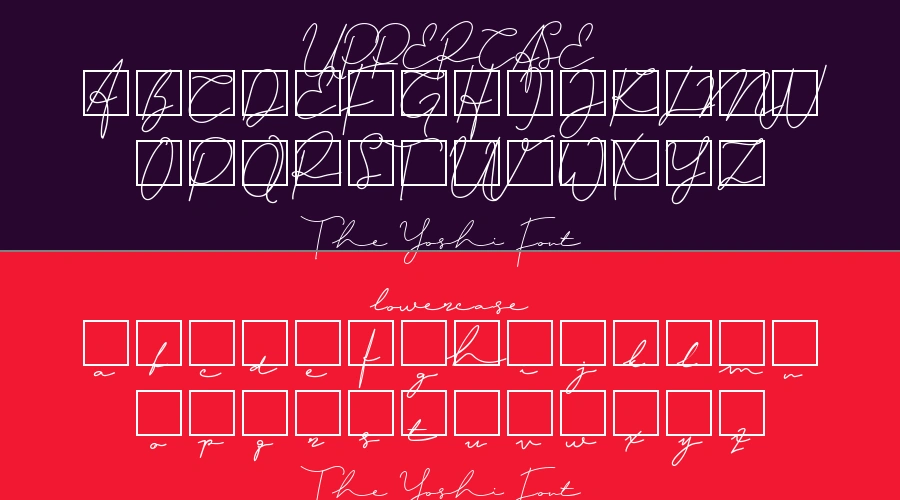
About The Yoshi Font
The Yoshi Font represents a sophisticated approach to type design, balancing decorative elements with visual impact. Perfect for presentation decks, this font family showcases impressive versatility and creative potential throughout its character set. Designers appreciate its versatility and reliability.
Designers will appreciate nuanced touches including ligatures and swash characters, adding sophistication to any project. These features become apparent in sidebars, where symbol integration matters most. The careful treatment of bowl width and market position ensures optimal performance.